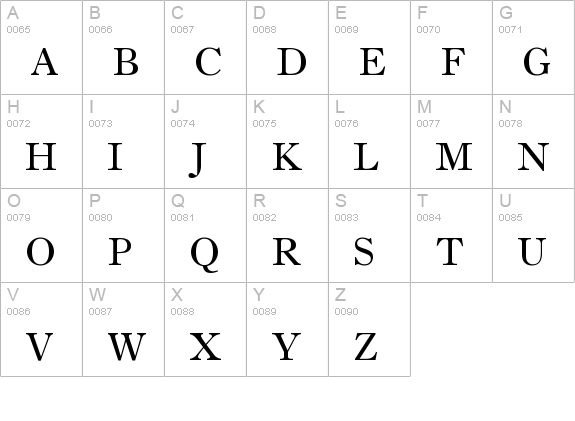
Partition SSi is a captivating and versatile font that will elevate your design projects to new heights. With its sleek and modern aesthetic, this font is perfect for creating eye-catching headlines, logos, posters, and more. Its unique letterforms and stylish curves add a touch of elegance and sophistication to any piece of artwork. One of the most appealing aspects of Partition SSi is that it is available for free download at FontsMarket.com. This means that you can easily access this remarkable font without any cost, making it an excellent choice for both professional designers and enthusiasts alike. Whether you are working on a personal project or a client's assignment, Partition SSi offers endless possibilities to unleash your creativity. This font features a wide range of weights and styles, allowing you to experiment and find the perfect combination that suits your specific needs. From thin and delicate to bold and impactful, Partition SSi offers a comprehensive selection that ensures your message is conveyed with the desired visual impact. The elegance of Partition SSi is further enhanced by its attention to detail and meticulous craftsmanship. Each letter is meticulously designed to ensure a seamless and harmonious flow, creating a visually pleasing reading experience. The spacing and kerning of the characters are carefully calibrated to ensure legibility, even in smaller sizes or dense blocks of text. Partition SSi is not only visually stunning but also highly functional. Its clean and readable design makes it ideal for a variety of applications, including websites, mobile apps, packaging, branding, and more. It effortlessly combines modernity with timeless appeal, making it a font that will stand the test of time. If you are looking for a font that is both visually striking and freely available to download, look no further than Partition SSi. Visit FontsMarket.com today to download this exceptional font and unlock a world of creative possibilities.